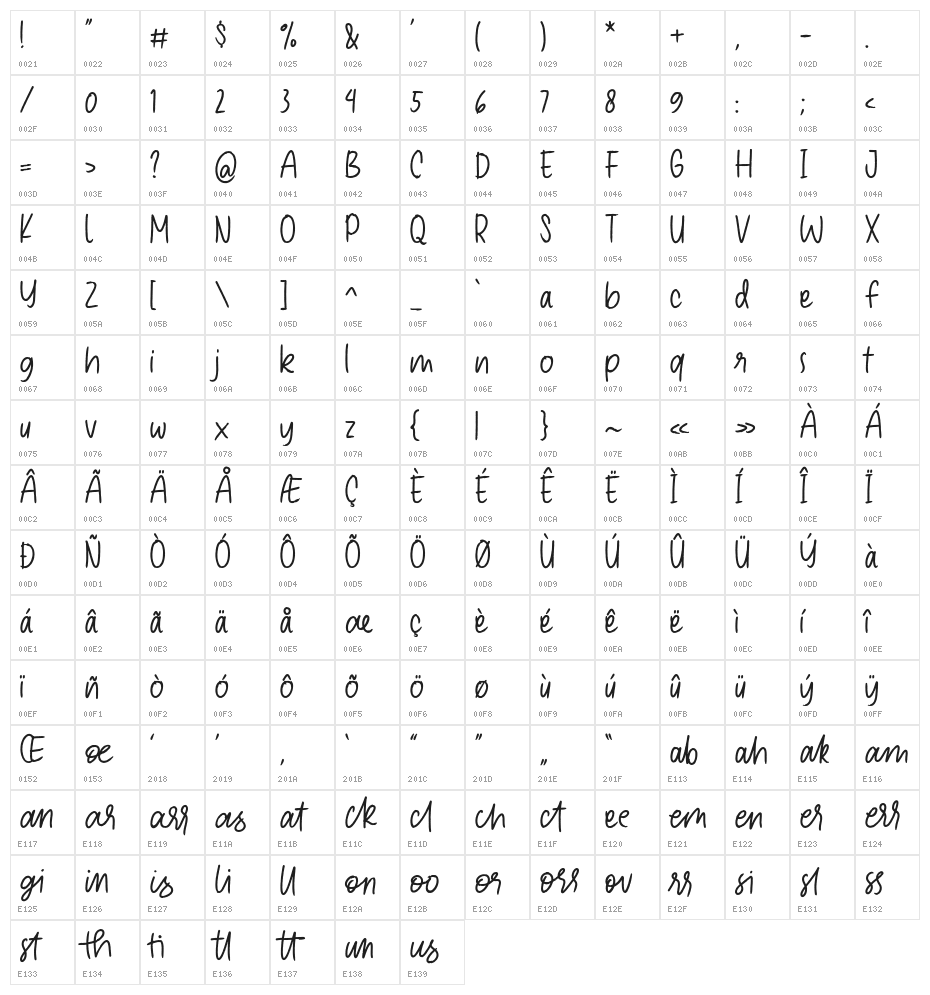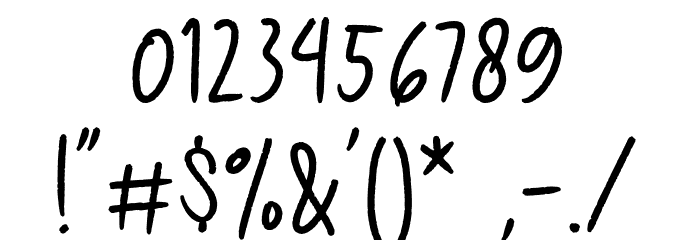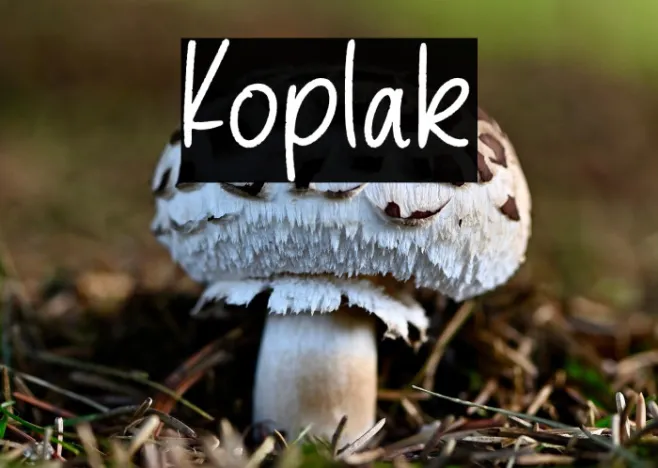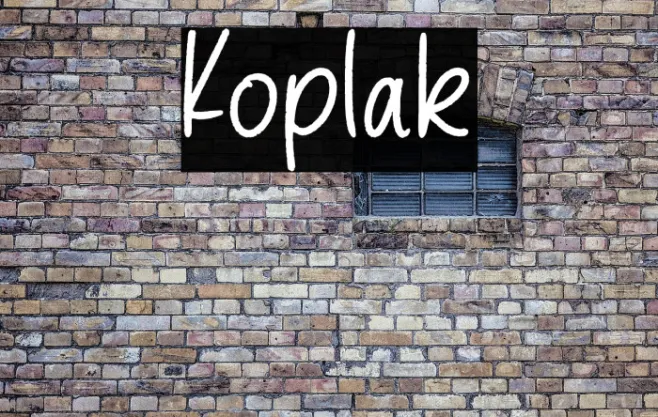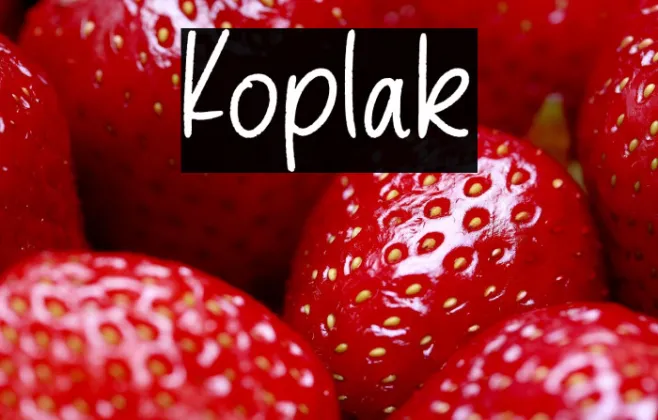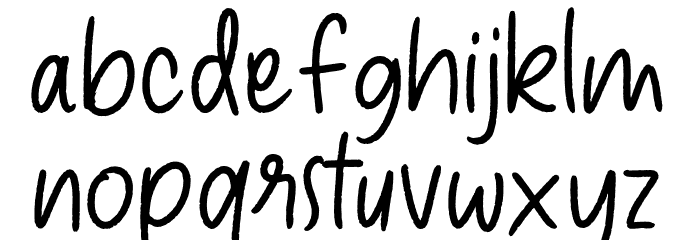
Koplak Font
Koplak Description
This font exudes a casual, handwritten style with a playful and informal vibe. The characters are slightly irregular, adding a personal touch that mimics natural handwriting. The uppercase and lowercase letters maintain a consistent flow, while the numbers and special characters complement the overall aesthetic. The strokes are smooth and fluid, giving the font a friendly and approachable appearance. This style is perfect for projects that require a personal or creative touch, such as invitations, greeting cards, or social media graphics.
| Use Case | Headlines, Logos, Informal text |
| Proposed Projects | Ideal for invitations, greeting cards, social media graphics, and personal branding. |